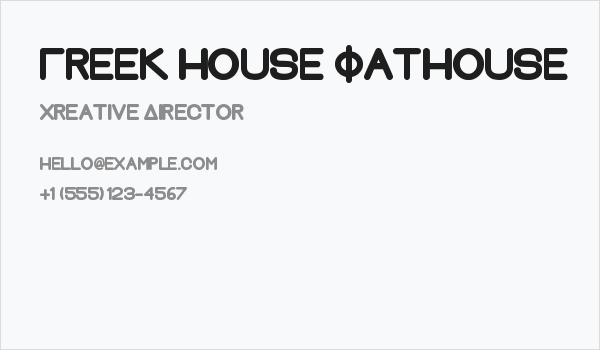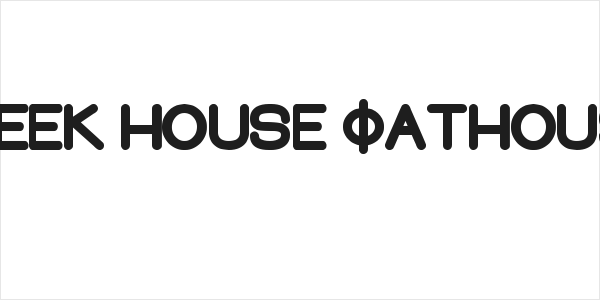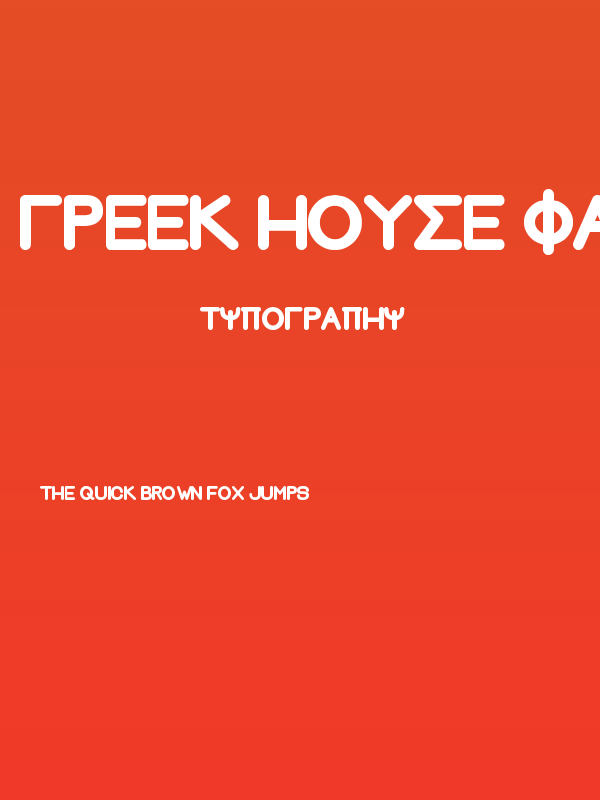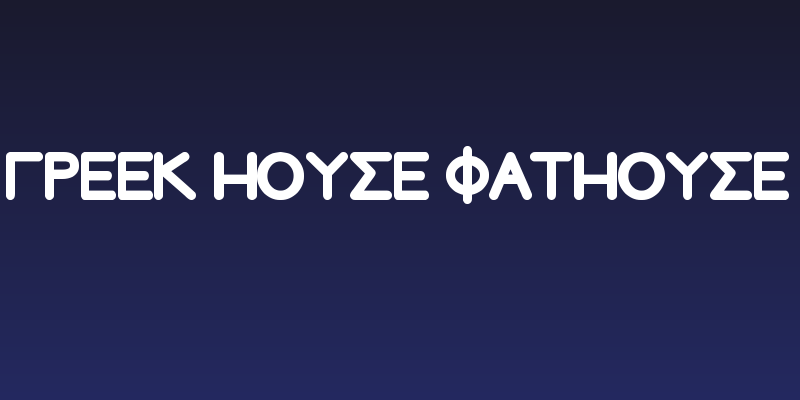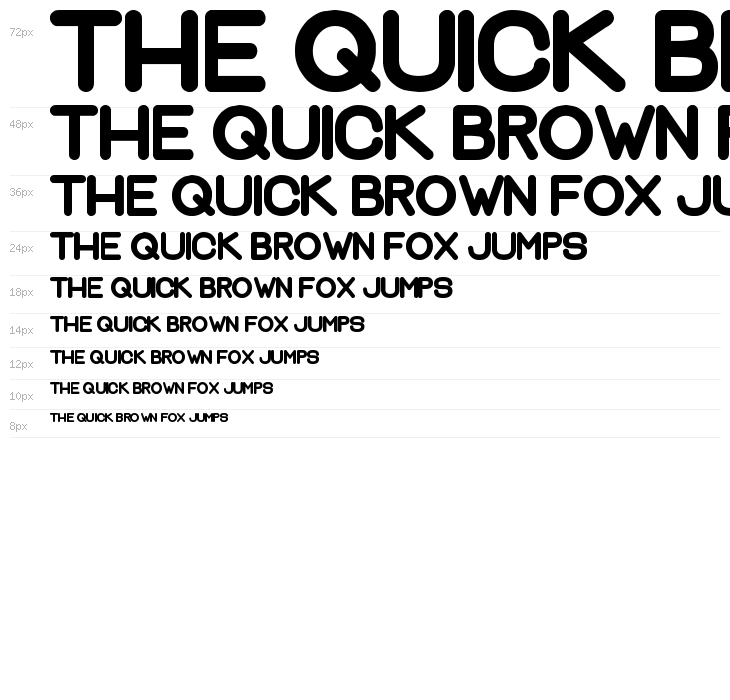
Greek House Fathouse Font
Greek House Fathouse Description
This font features a bold, rounded style with a strong geometric influence, combining both Greek and Latin alphabets. The characters are uniformly thick, giving a cohesive and modern appearance. The rounded edges soften the overall look, making it approachable yet striking. The numbers and special characters maintain the same boldness and rounded form, ensuring consistency throughout. This font's design is ideal for creating a sense of unity and strength, while its rounded forms add a touch of friendliness.